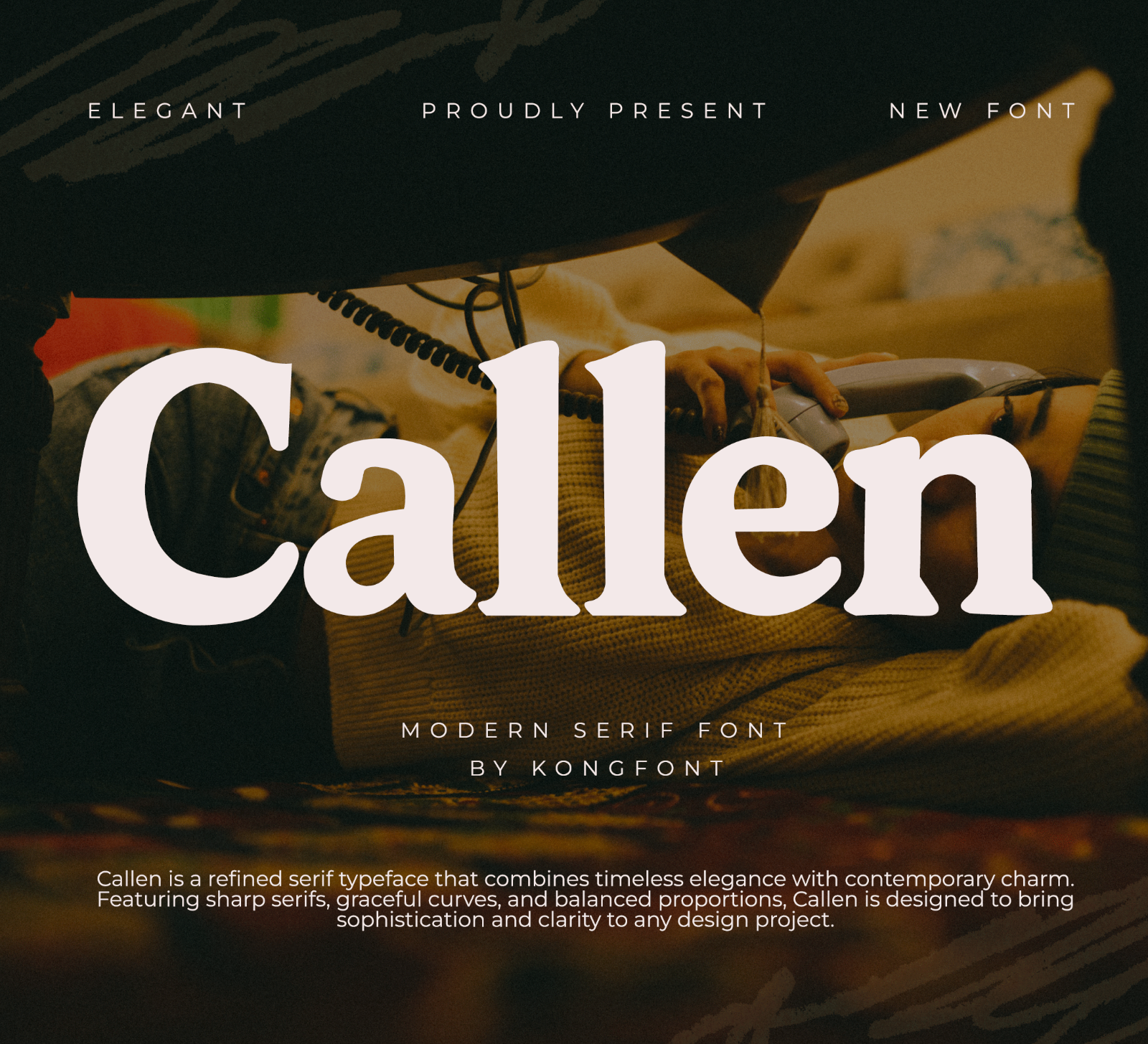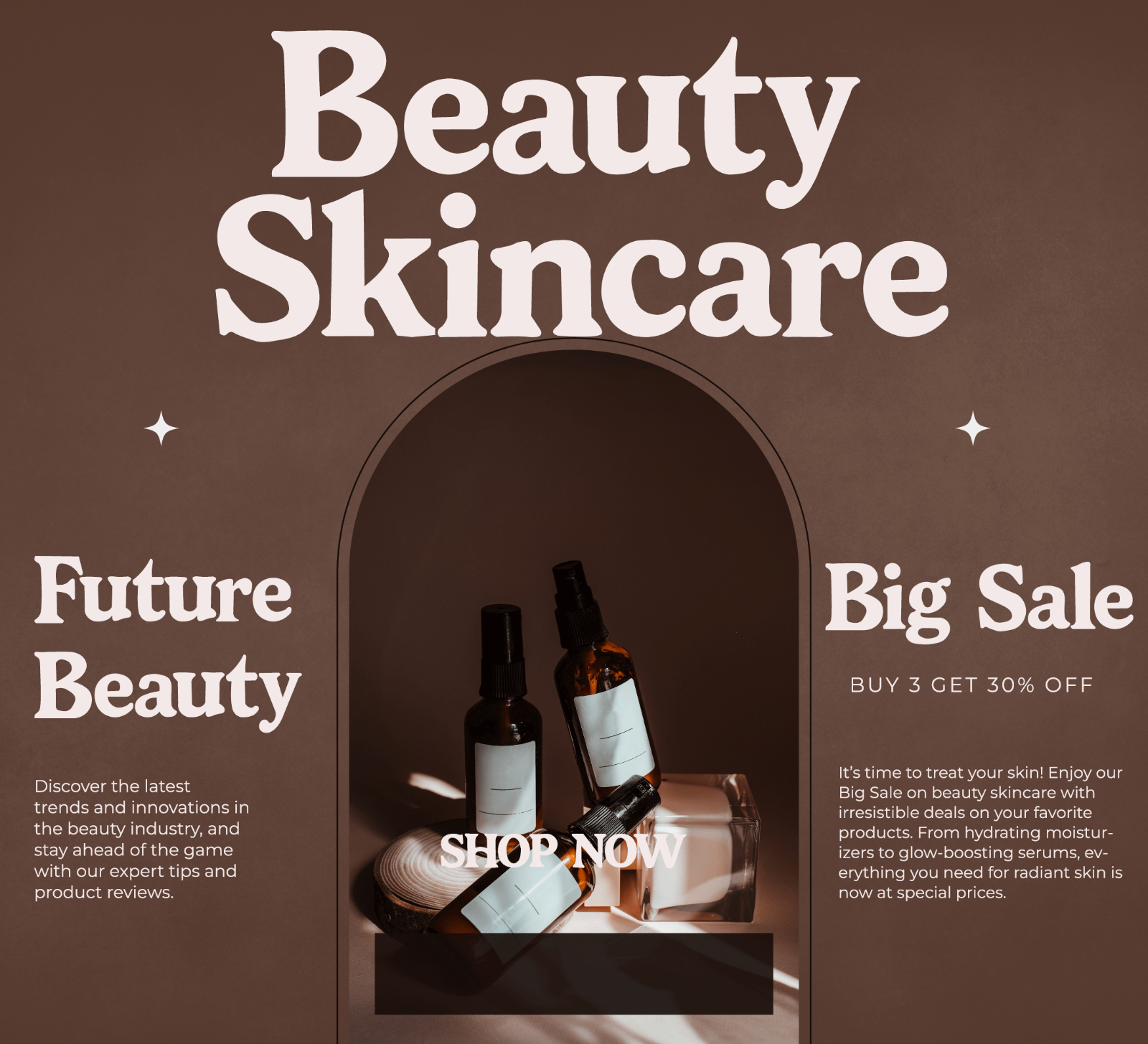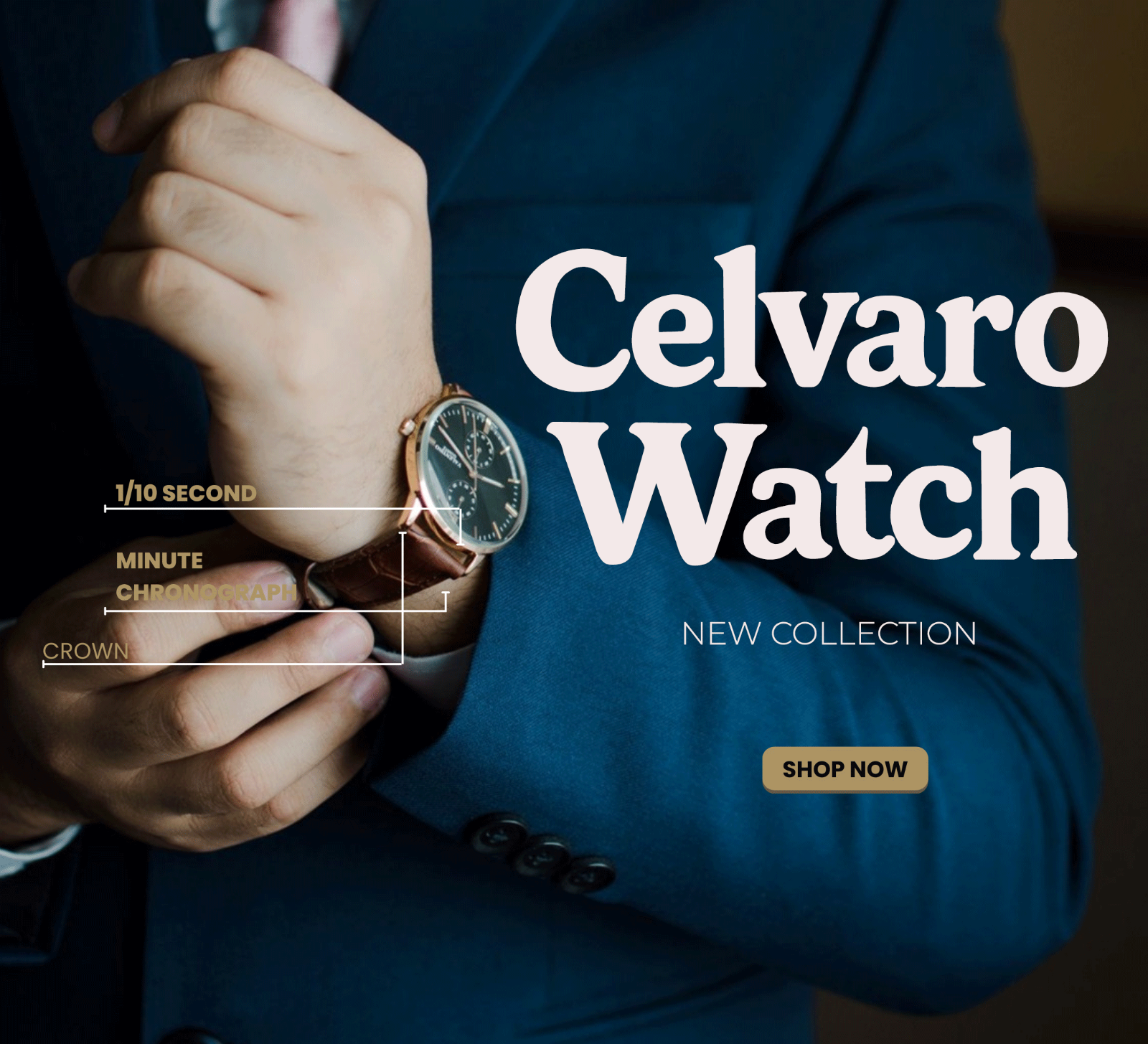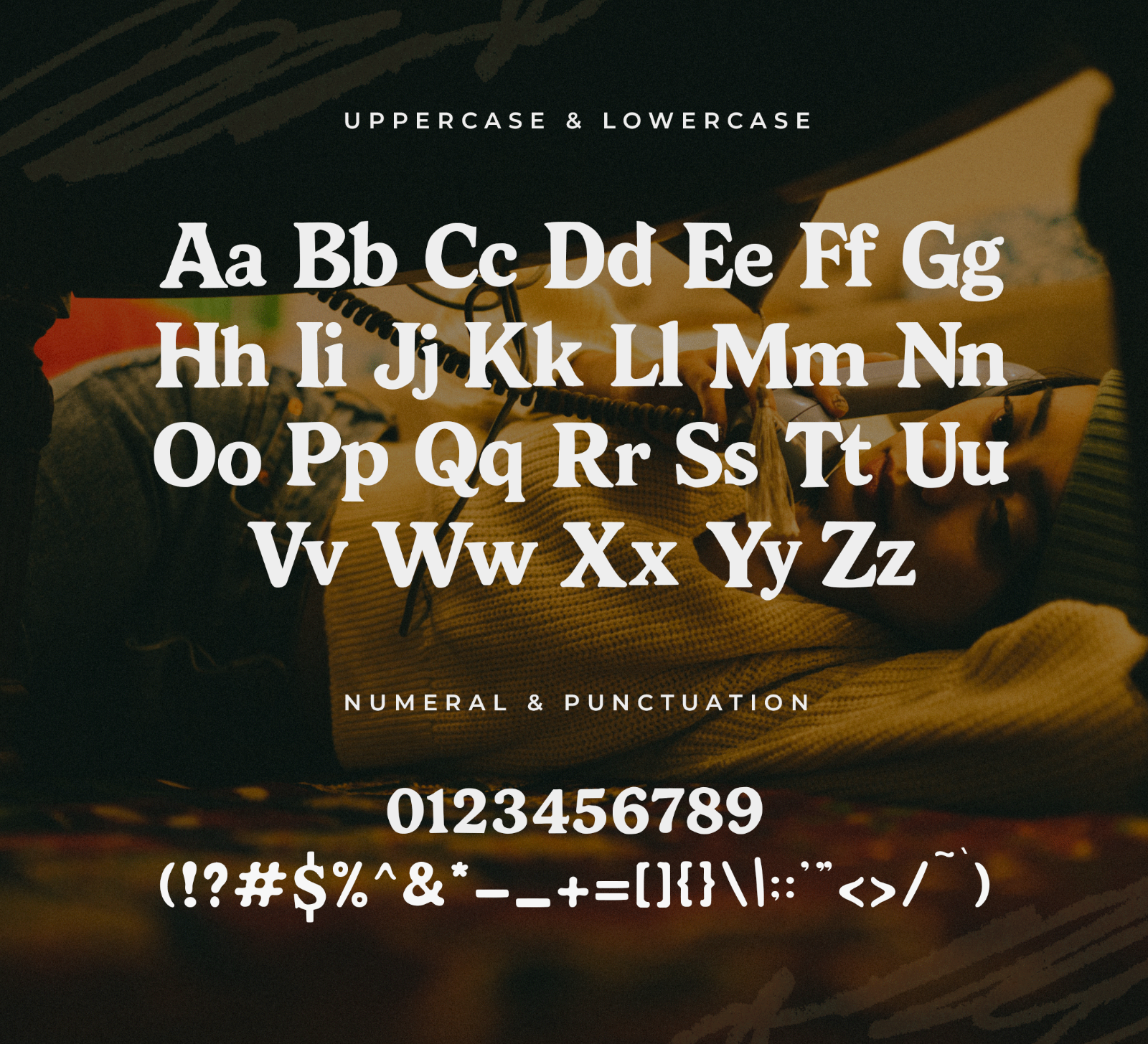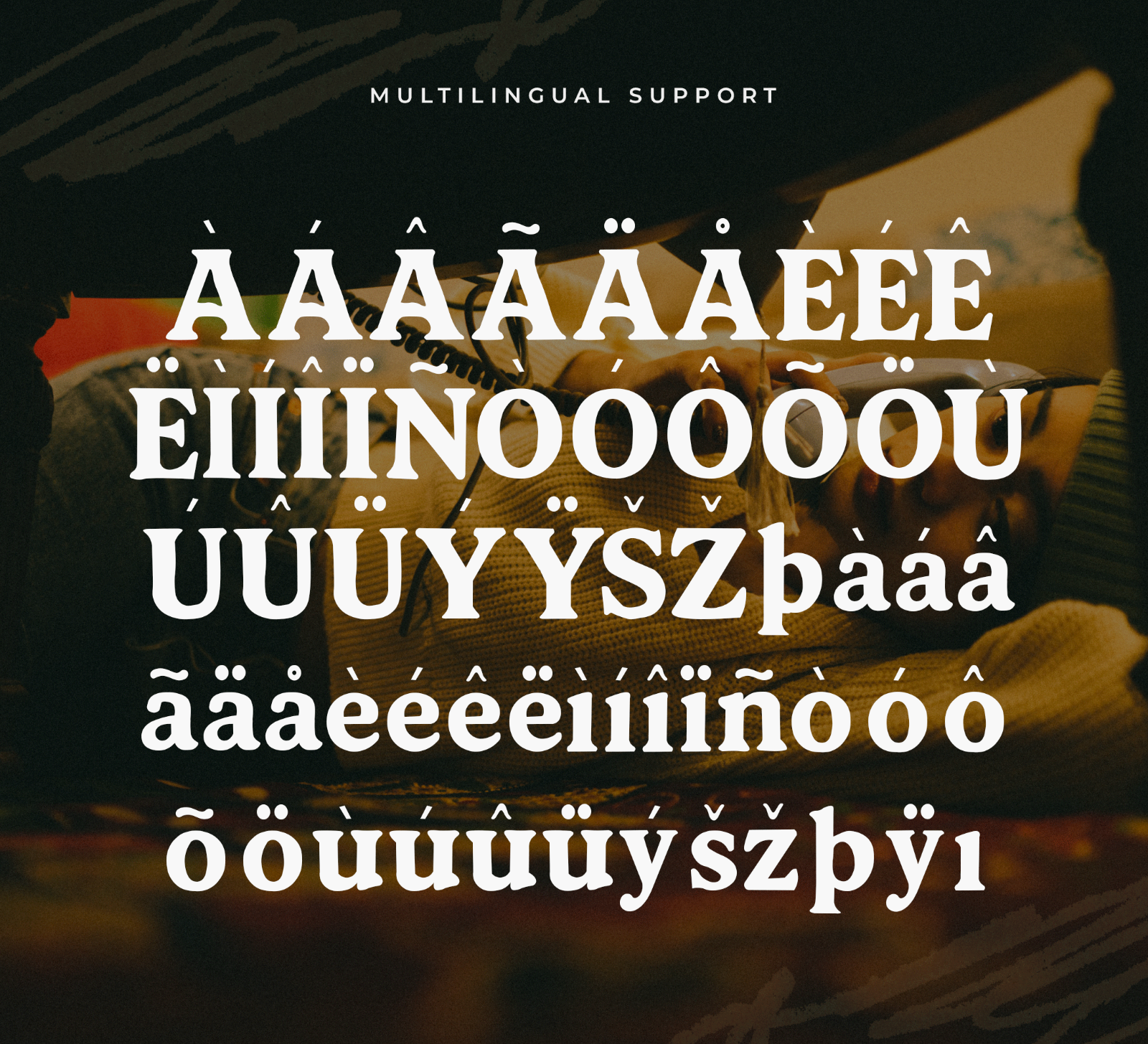
Callen is a modern serif font with bold letterforms, elegant curves, and a refined classy style. Its clean and distinctive appearance makes it perfect for branding, headlines, and stylish display projects.
• Branding
• Logos
• Business cards
• Blog headers
• Quotes
• Editorial titles
• Packaging
• Creative typography